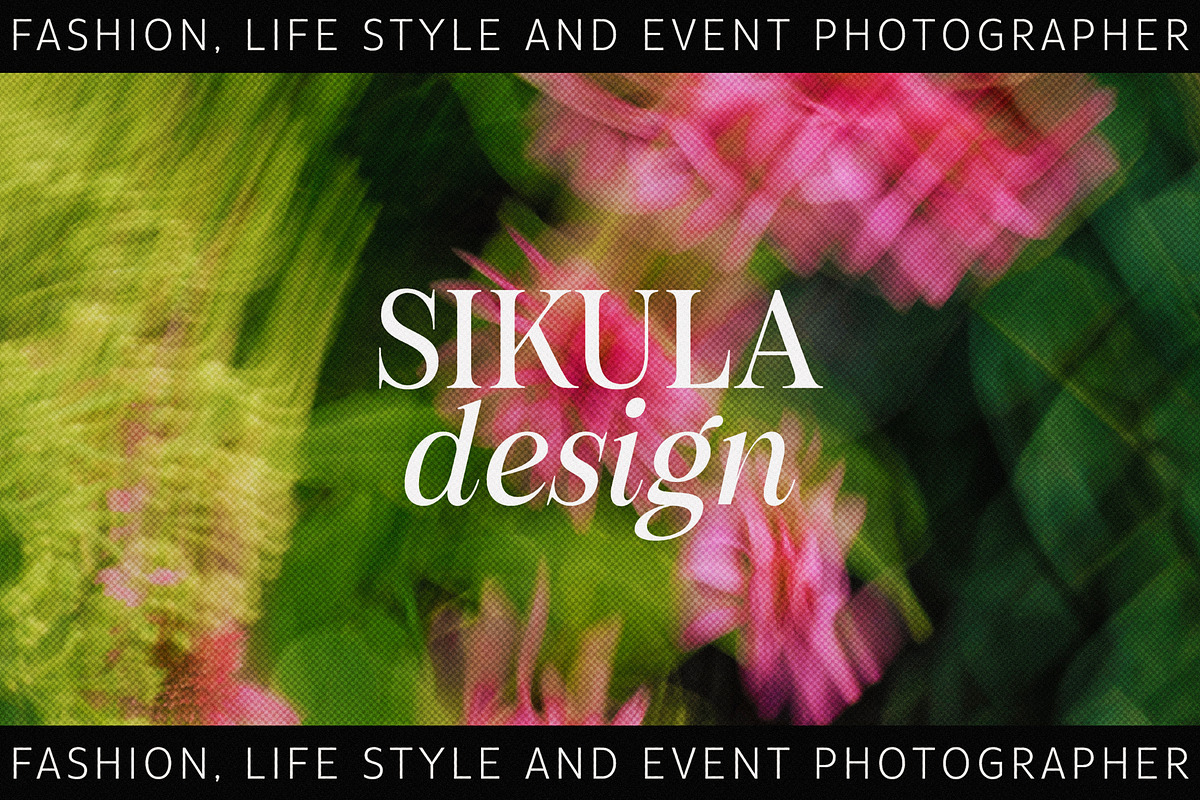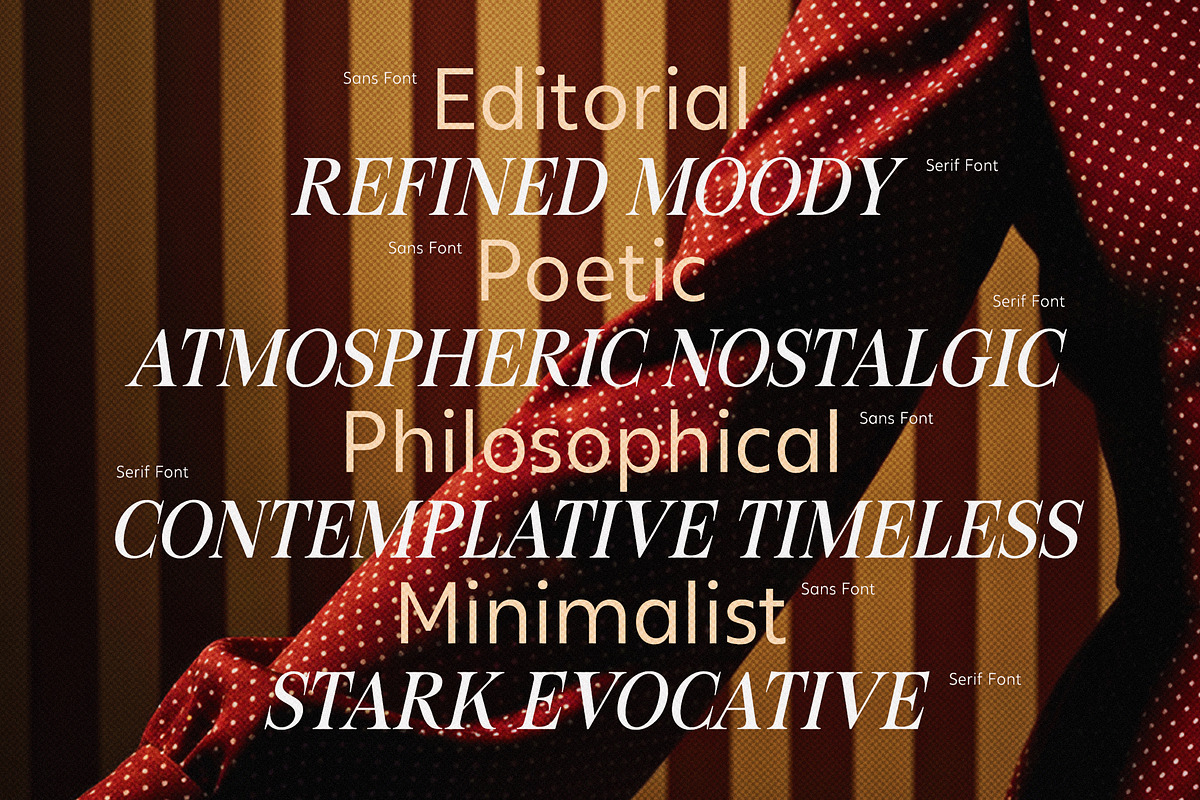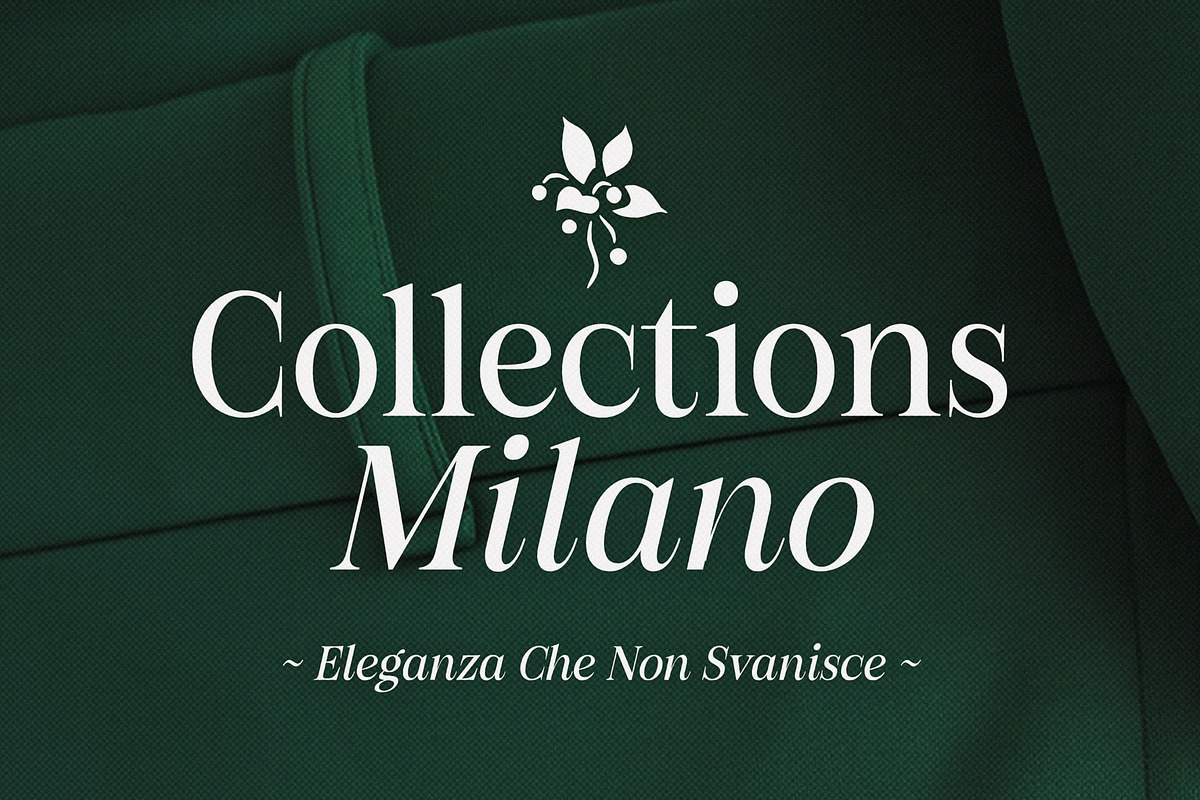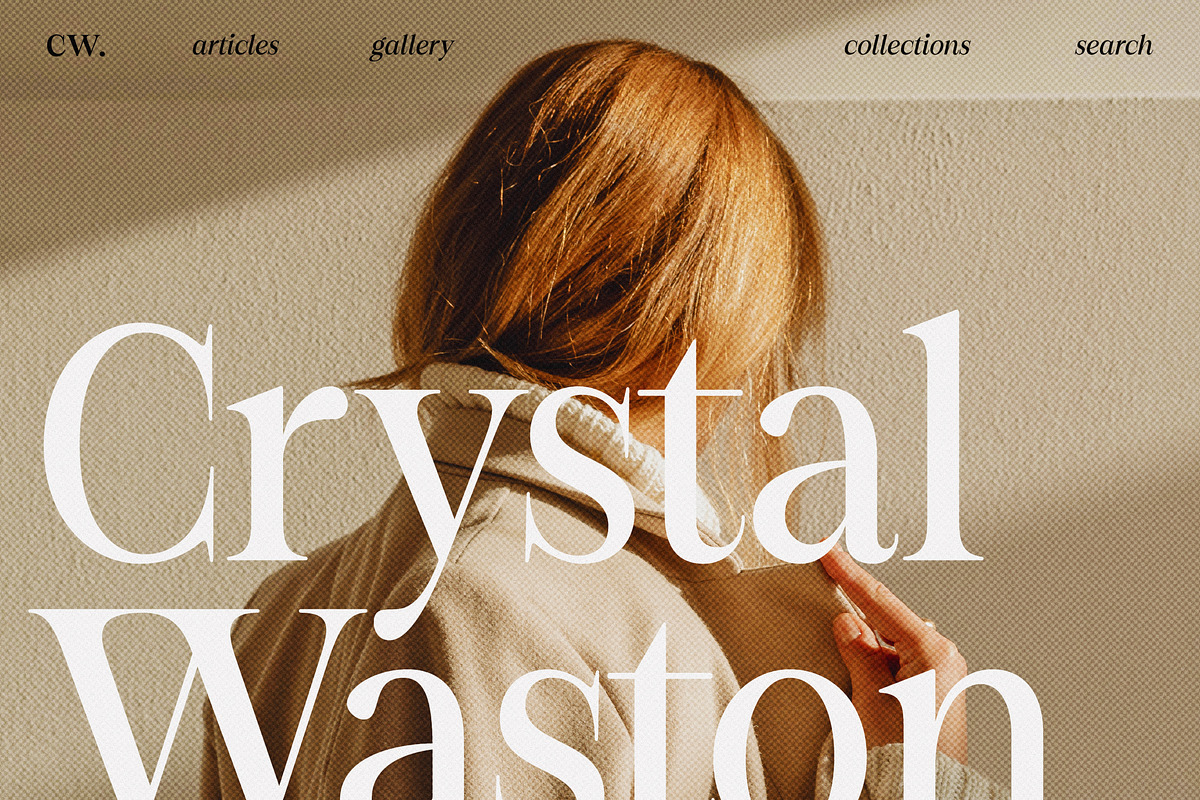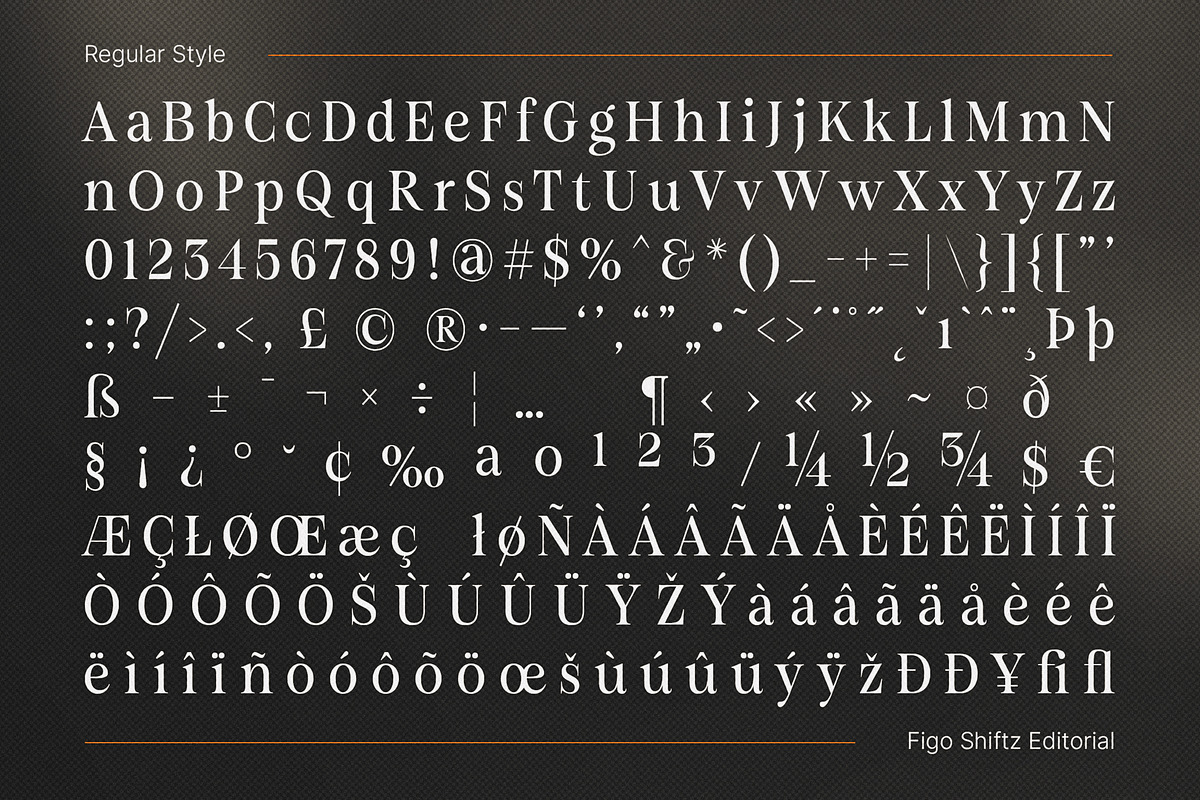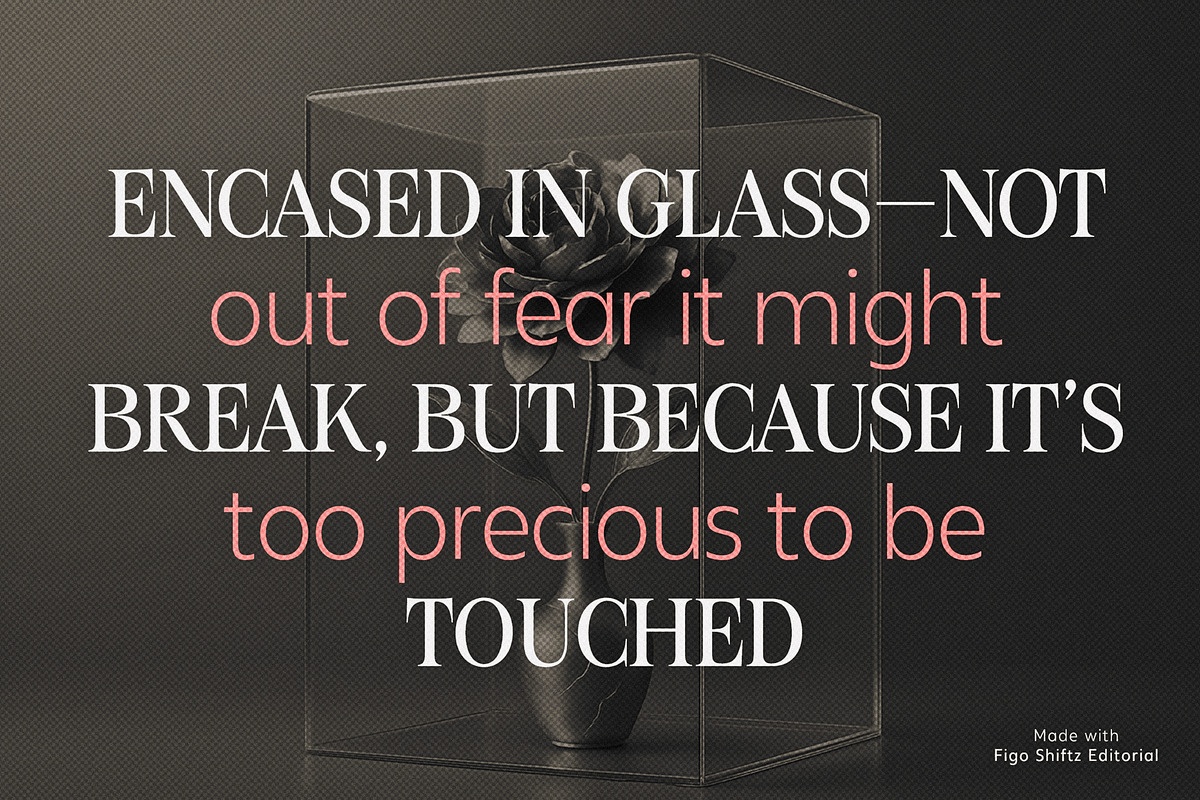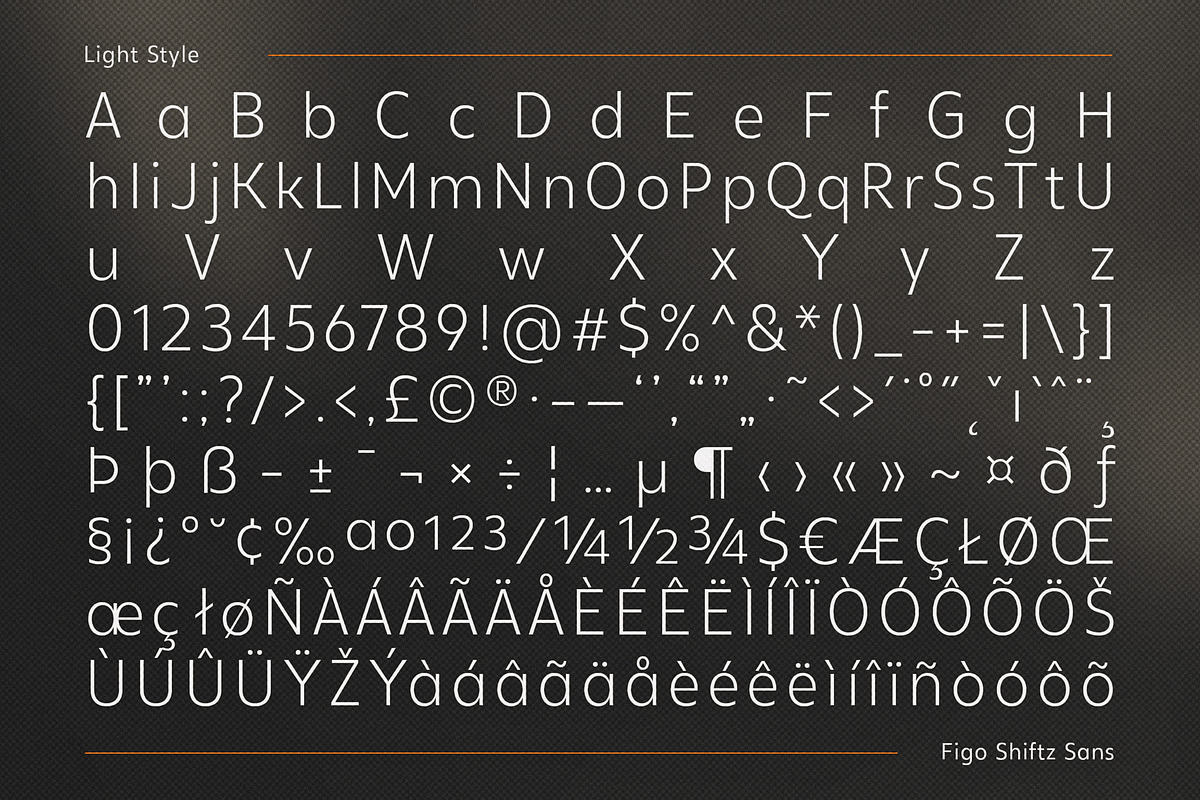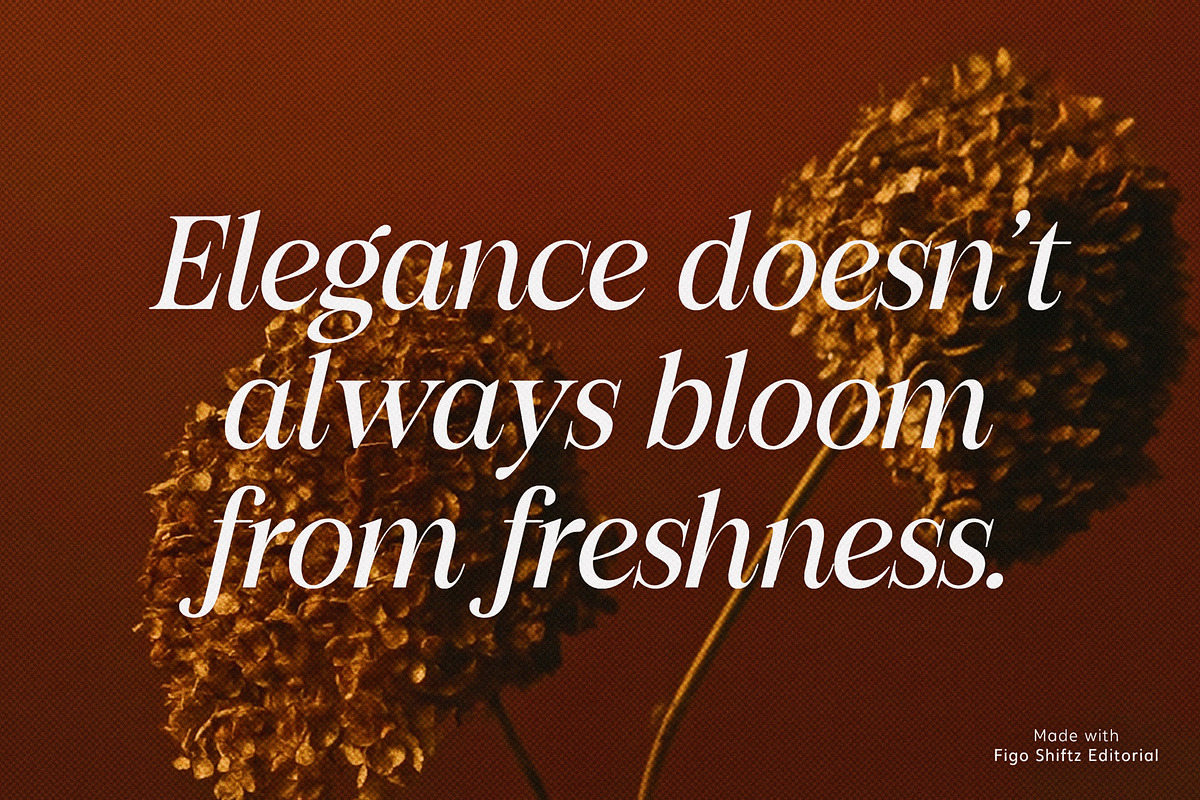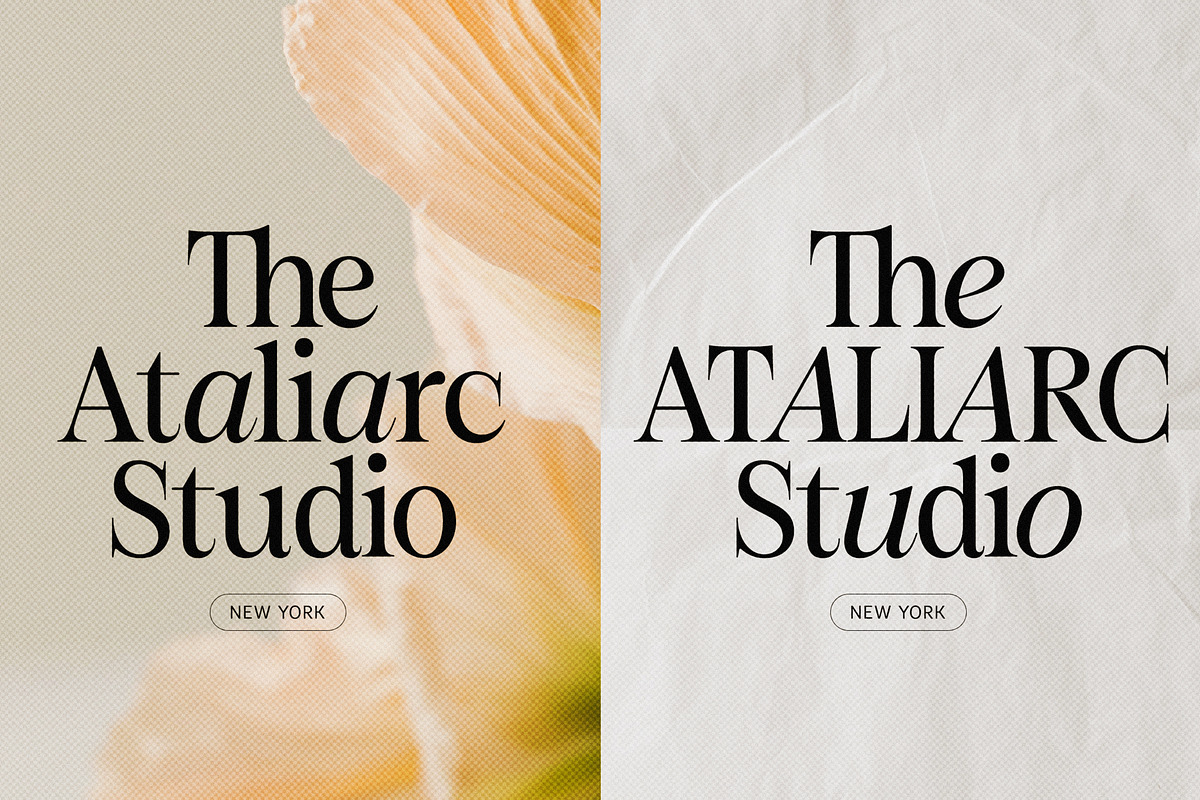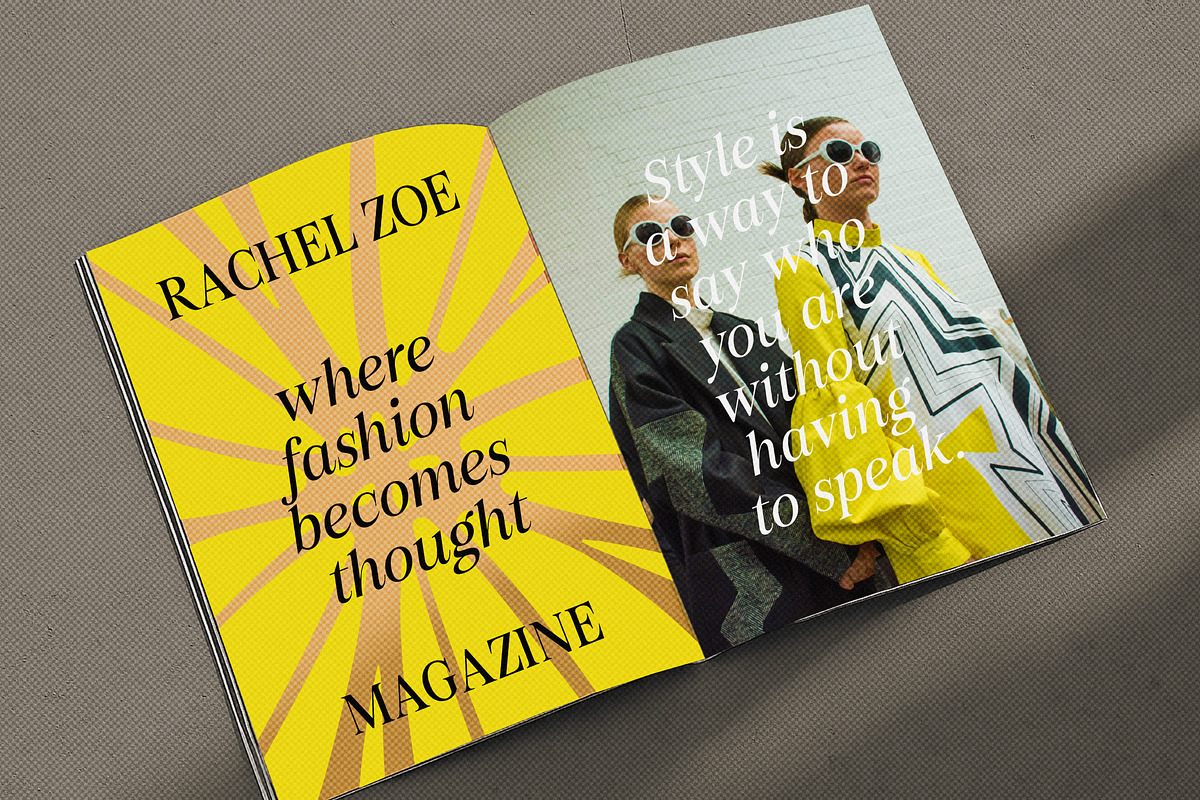
Figo Shiftz - Editorial Serif & Sans
New updated: Figo Shiftz Sans - Regular & Light + Italics
Figo Shiftz Editorial is a modern serif typeface designed to evoke elegance and timeless sophistication. Crafted by Propertype Foundry, it blends classic typographic traditions with contemporary refinement, making it ideal for editorial design, branding, and high-end publishing.
Key Features: • Elegant Serif Structure: Delicate yet confident strokes with refined contrast. • Classic Italics: Graceful italic forms that add a touch of tradition and fluidity. • Timeless Appeal: Suitable for both modern and vintage-inspired layouts. • Editorial Focus: Perfect for magazines, books, and visual storytelling.
Whether you're designing a luxury fashion spread or a minimalist literary journal, Figo Shiftz Editorial offers a voice that’s both poised and expressive.